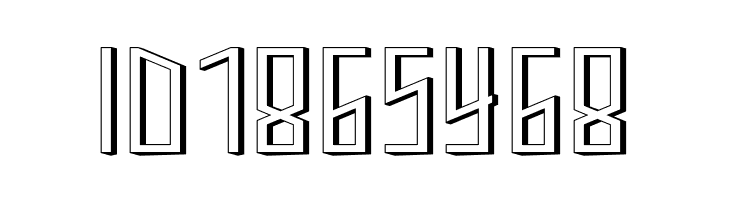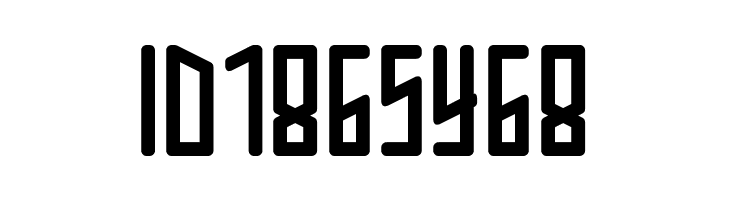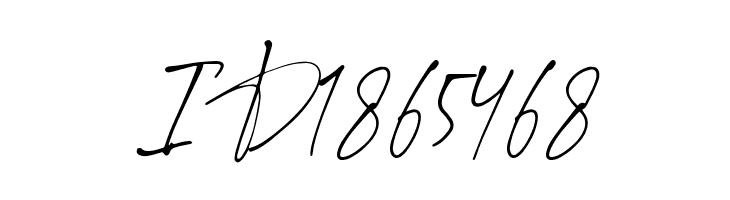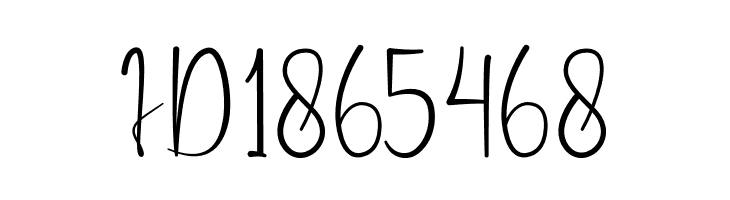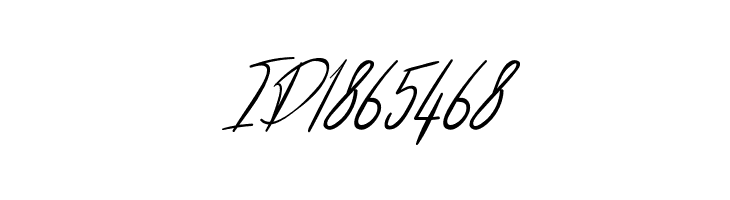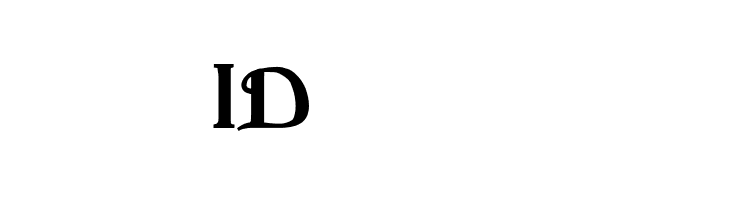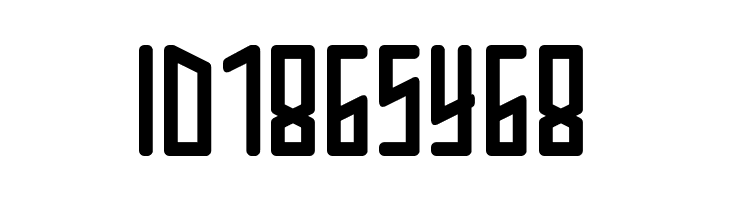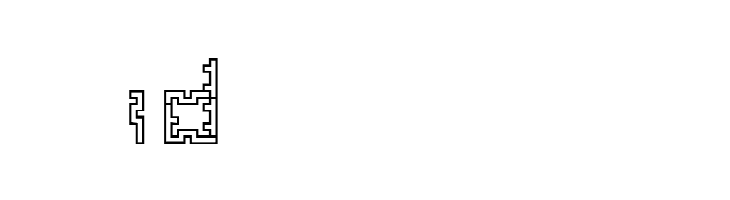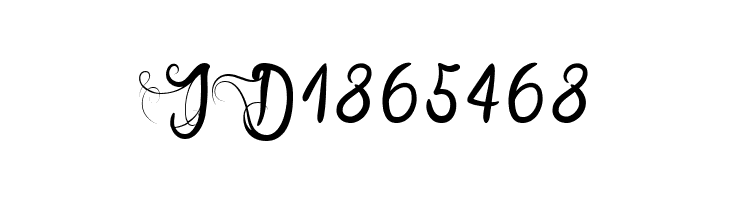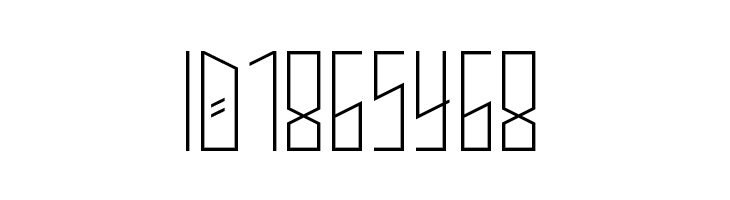
• Anne Exilum
An elegant, decorative font with ornate uppercase and smooth script lowercase.
• Anne sans
A maze-like, pixelated font with a retro digital aesthetic.
• Anneth Believer
A whimsical handwritten font with flowing, artistic letterforms.
• AnnetteBradfordDEMO
A dynamic and expressive handwritten script font with fluid and cursive letterforms.
• Annexed Regular
A bold, decorative font with medieval-inspired flourishes and sharp serifs.
• Annie Signature
A modern, elegant handwritten font with fluid, connected strokes.
• ANNIHILATE Regular
A geometric, angular font with a futuristic and precise design.
• ANNIHILATION
• ANNIHILATOR 3D
A bold, geometric 3D font with sharp angles and a futuristic style.